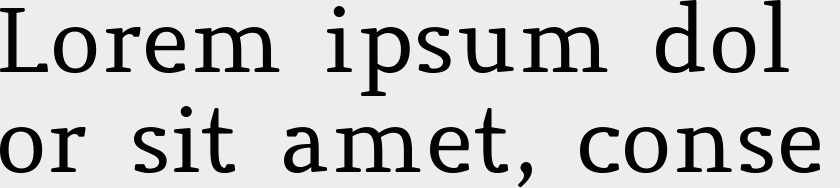
Xecrian
Xecrian is suitable for any use: book text, documentation, business reports, business correspondence, magazines, newspapers, posters, advertisements, multimedia, and corporate design.